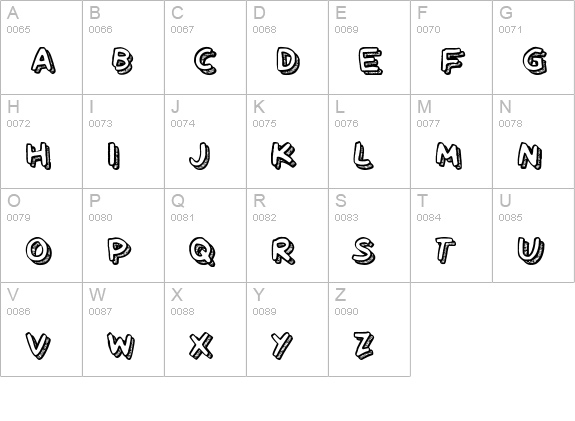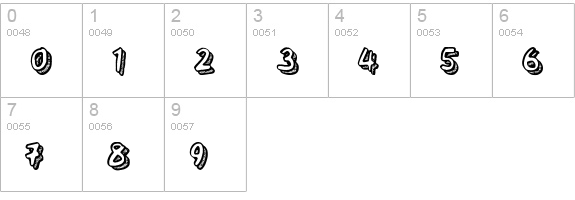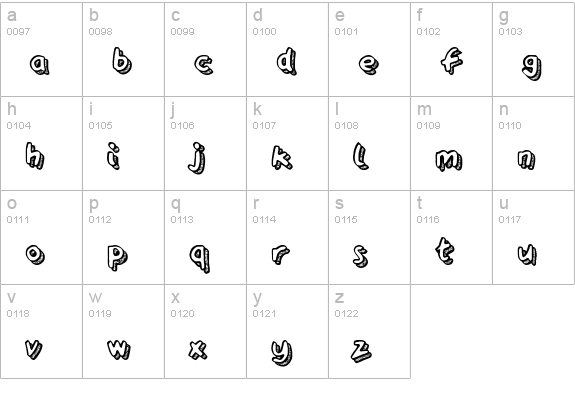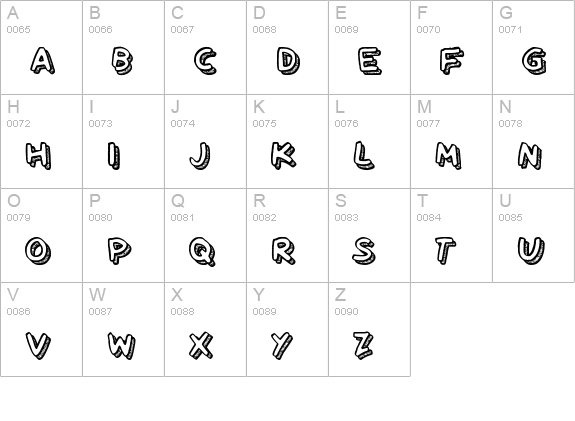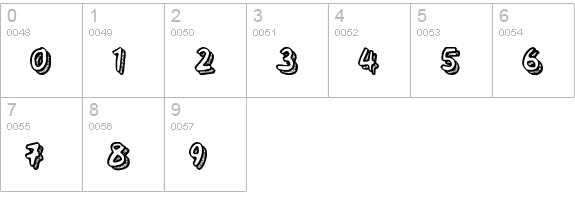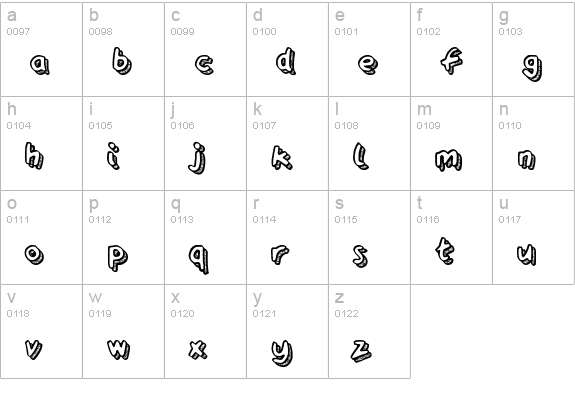
Playtime Font Details
Introducing Playtime, a whimsical and playful font that is sure to bring joy to your designs! This font is perfect for adding a touch of fun and lightheartedness to any project. With its charming and quirky letterforms, Playtime captures the essence of childhood imagination and carefree adventures. Playtime is a versatile font that can be used for a variety of purposes. Whether you are designing a children's book, creating party invitations, or adding a playful touch to your branding, this font will effortlessly add a sense of playfulness and creativity. One of the best things about Playtime is that it is free! That's right, you can freely download this font at FontsMarket.com. We believe that creativity should be accessible to all, and that includes having access to high-quality fonts without breaking the bank. With Playtime, you can bring your designs to life without spending a dime. Not only is Playtime free, but it is also incredibly easy to use. The font comes in a variety of weights and styles, allowing you to customize your designs to suit your needs. Whether you prefer a bold and vibrant look or a more subtle and delicate touch, Playtime has got you covered. So, go ahead and let your imagination run wild with Playtime! Download this delightful font today at FontsMarket.com and start adding a bit of whimsy and joy to all your creative endeavors. The possibilities are endless when you have Playtime at your fingertips.